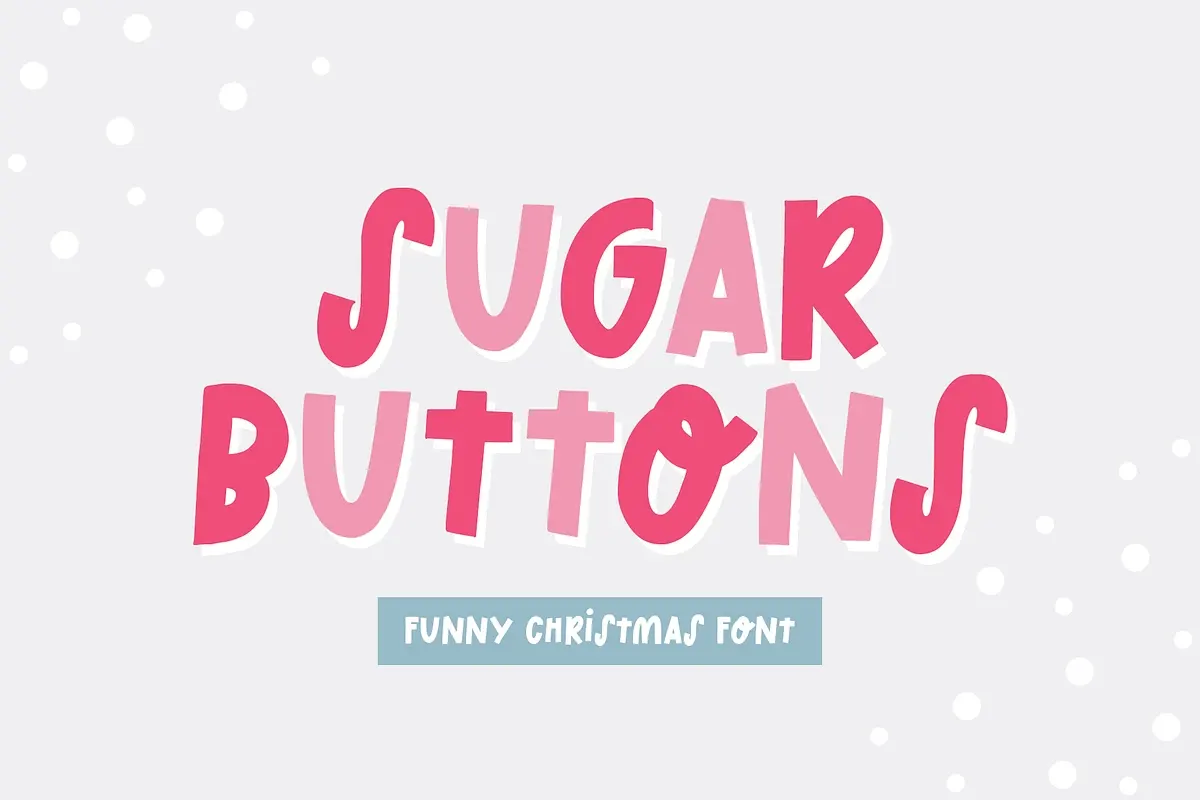
Sugar Buttons Funny Christmas Font Free Download is a cheerful and festive typeface that brings the holiday spirit to life with every letter. Its playful shapes, whimsical curves, and candy-inspired style make it the perfect choice for Christmas cards, kids’ holiday crafts, seasonal packaging, and joyful social media posts. This font radiates warmth, fun, and a little sprinkle of holiday magic.
Designed with a bouncy and cartoonish feel, Sugar Buttons Funny Christmas Font Free Download adds instant charm to any project. Whether you're creating designs for winter promotions or decorating printable gift tags, this font helps capture the joy and excitement of the season in a lighthearted way.